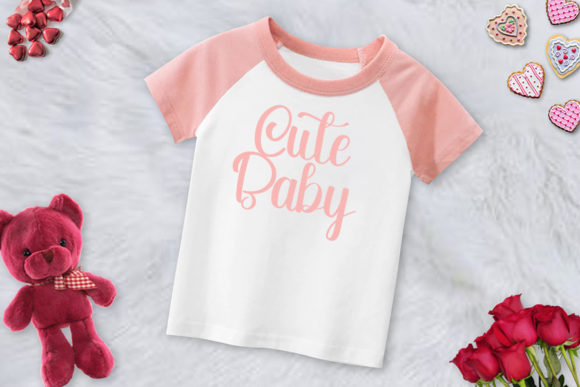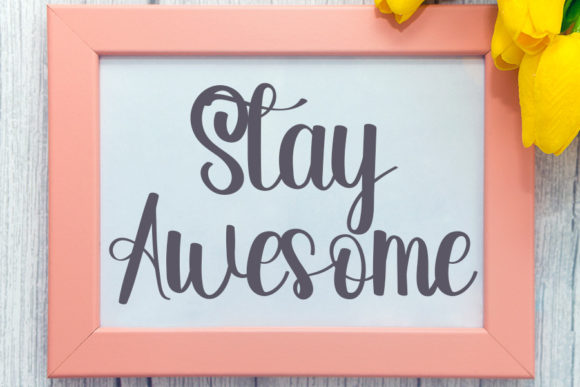
Sometime Honeymoon Font
db-ku.com - Script & Handwritten -- Sometime Honeymoon is a unique and simple handwritten font that feels extremely delicate and playful. Fall in love with its superb characters, and use this font for your most creative ideas!